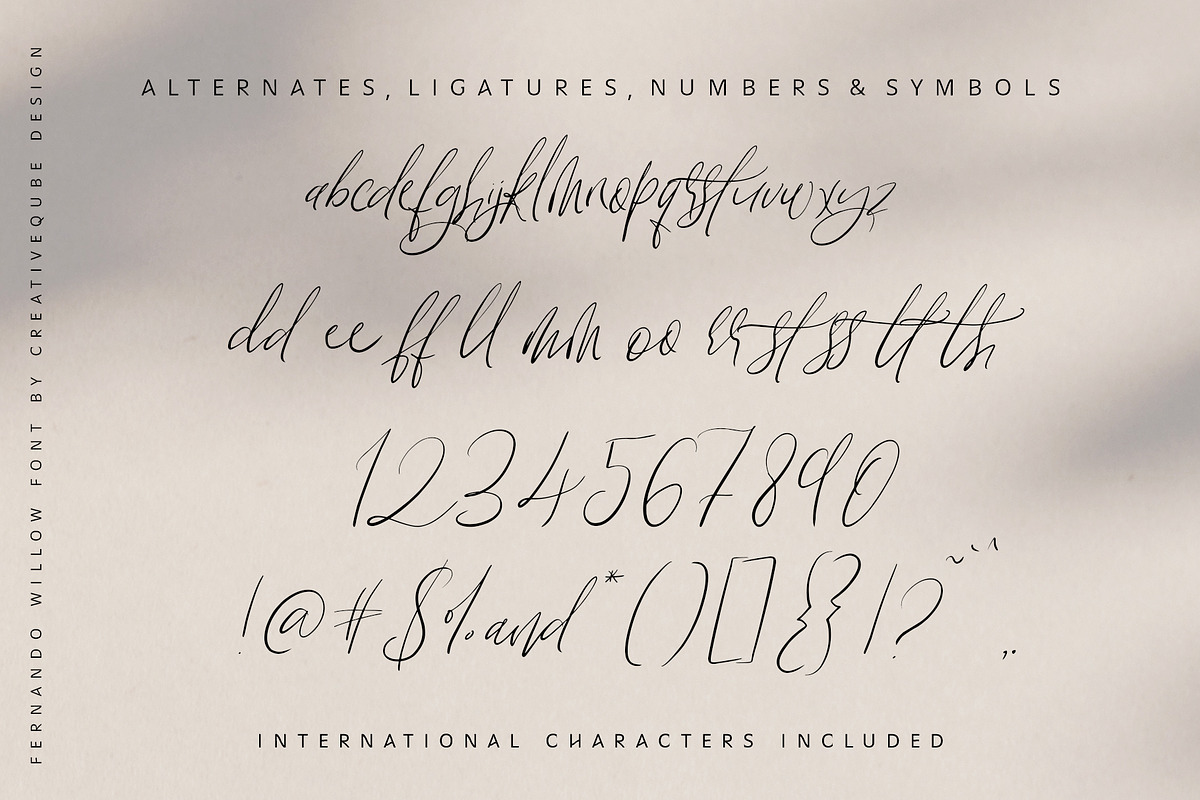
Fernando Willow Heart Script
Introducing a new hand written love heart script font - Fernando Willow
This is a gorgeous romantic hand written font, perfect for quotes, invites, weddings, posters, signs, branding, logos, signage, and much more! It includes a full set of lowercase alternates, plus beginning and ending swashes for lowercase letters, beginning swashes for Uppercase letters, beginning and ending heart swashes, and a special font version that creates a heart swash between 2 words when the space bar is used!
International Characters Included.